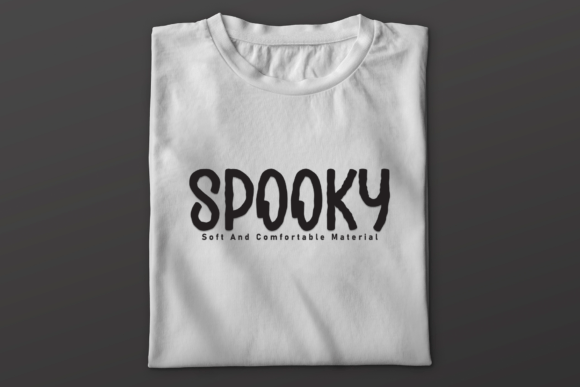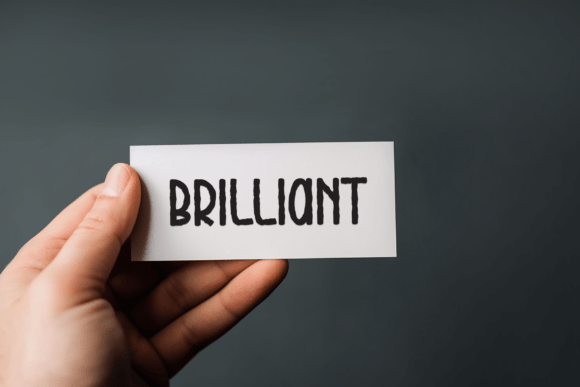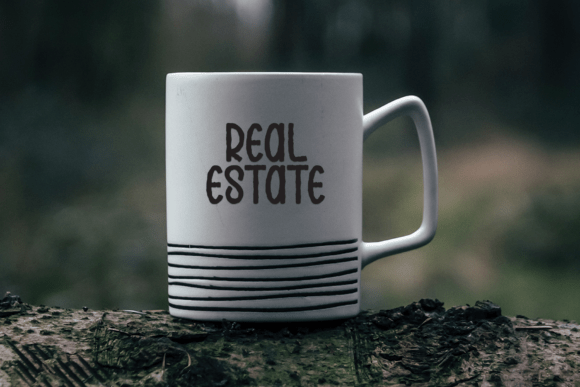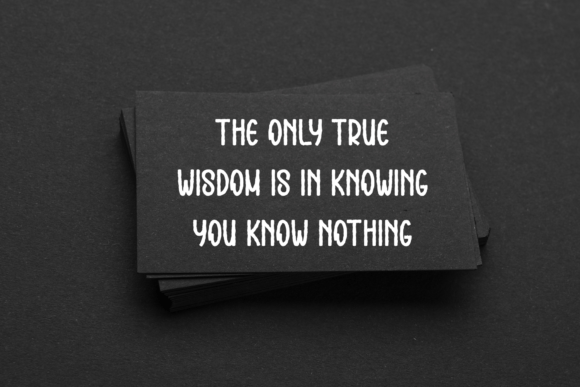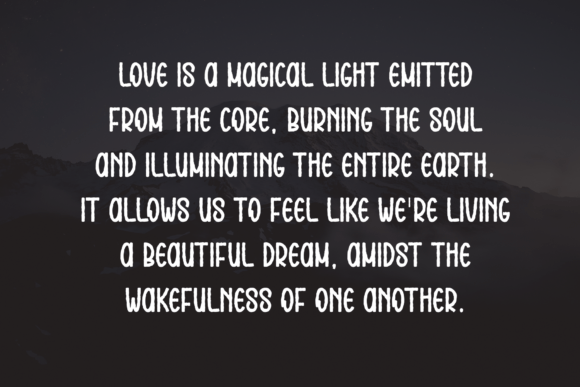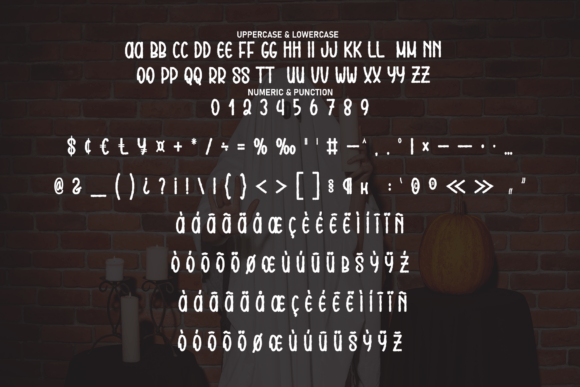
Introduction to Sinister Halloween Font
As you start planning your Halloween-themed project, the right font can make all the difference. It’s that moment when you’re browsing through design resources, searching for the perfect combination of style and atmosphere. And then, you stumble upon the Sinister Halloween Font – a delightful display font that immediately catches your eye.
This font is a masterclass in balancing simplicity with a friendly vibe, featuring clean lines, balanced letterforms, and subtle rounded edges. With its polished finish, it’s the perfect addition to any design project, from branding and headlines to packaging and digital content. Whether you’re working on a creative project or need a high-quality font for your next design venture, the Sinister Halloween Font is a valuable resource that’s sure to deliver.
Key Features of Sinister Halloween Font
- High-quality design resource perfect for creative projects, including Halloween-themed graphics and decorations.
- Unique, eerie design with a transparent background, allowing for easy layering and customization in your creative project.
- Perfect for designers, artists, and crafters looking for a spooky, high-quality design resource to elevate their Halloween-themed projects.
Honest Review: Sinister Halloween Font
I recently stumbled upon the Sinister Halloween Font while searching for a spooky design resource for a creative project. I was pleasantly surprised by the high quality of the font, which is perfect for adding a touch of darkness to any design.
What works well is the font’s versatility. It can be used for various creative projects, from spooky invitations to Halloween-themed websites. The font’s unique design and high quality make it a great addition to any design resource collection.
Here are some of the font’s key features:
- High quality design
- Perfect for spooky and Halloween-themed projects
Overall, I’m impressed with the Sinister Halloween Font. It’s a great design resource for anyone looking to add a touch of darkness to their creative project. While it has some limitations, the font’s unique design and high quality make it a must-have for any design enthusiast.
To get the most out of the Sinister Halloween Font, experiment with different font sizes, colors, and styles to create a unique look. Combine the font with other design elements, such as images or graphics, to add depth and interest to your design.
The Sinister Halloween Font is perfect for various creative projects, including Halloween-themed invitations, posters, social media graphics, and presentations. It’s also a great resource for designers looking to create unique and spooky designs for their clients.